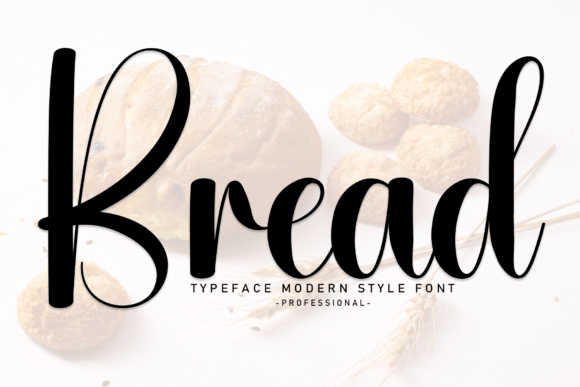
The Sweet Charm of Bread Font: A Designer’s Delight
I’ll never forget the time I was working on a wedding invitation project, and my client asked for a font that was “friendly, yet elegant.” I scoured the internet, trying out font after font, but nothing seemed quite right. That was until I stumbled upon Bread Font. ✨ This sweet and friendly handwritten font has been a game-changer for my designs, and I’m excited to share its charm with you.
A Personal Review of Bread Font
So, what makes Bread Font so special? Let’s dive into the good stuff! 😊
- ✅ Fresh and neat: Bread Font has a clean and modern feel that’s perfect for a variety of design projects.
- ✅ Sweet and friendly: The font’s handwritten style gives it a warm and approachable personality.
- ✅ Versatile: From wedding invitations to cards, and even social media graphics, Bread Font can adapt to any design need.
Of course, no font is perfect, and Bread Font has a few minor quirks to consider:
- ⚠️ Limited character set: While Bread Font has a wide range of characters, it may not have every special character or glyph you need.
- 🤔 May not be suitable for body text: Due to its handwritten nature, Bread Font may not be the best choice for longer blocks of text.
The Story Behind Bread Font
Bread Font was designed with the intention of creating a friendly, approachable font that’s perfect for a variety of design projects. Its creator wanted to craft a font that felt like a warm hug – comforting and inviting. And I think they succeeded! 😊
| Q: Is Bread Font suitable for body text? | A: While Bread Font is a beautiful font, it may not be the best choice for longer blocks of text due to its handwritten nature. |
| Q: Does Bread Font have OpenType features? | A: Yes, Bread Font has a range of OpenType features, including glyphs and stylistic alternates, that can add visual interest to your design. |